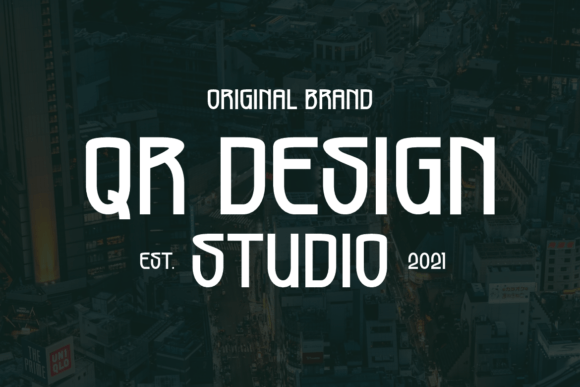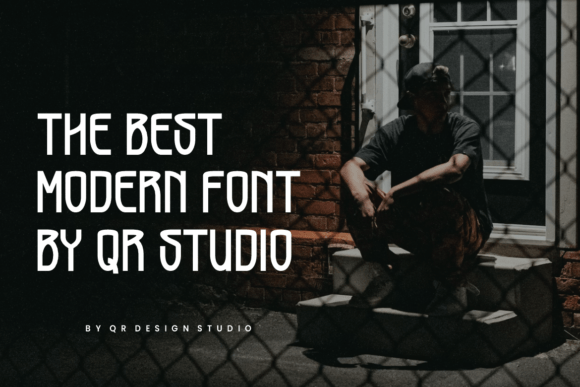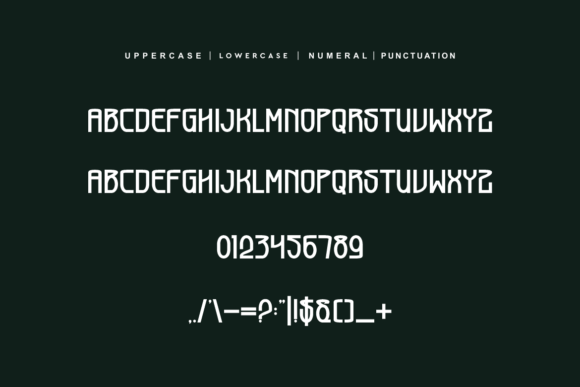
Introduction to Hengako Font
Hengako is a bold and unique sans serif font.
It is suitable for any branding project like logos, websites, gaming, posters, social media and more It will be outstanding in a wide range of contexts.
Why Choose Hengako Font?